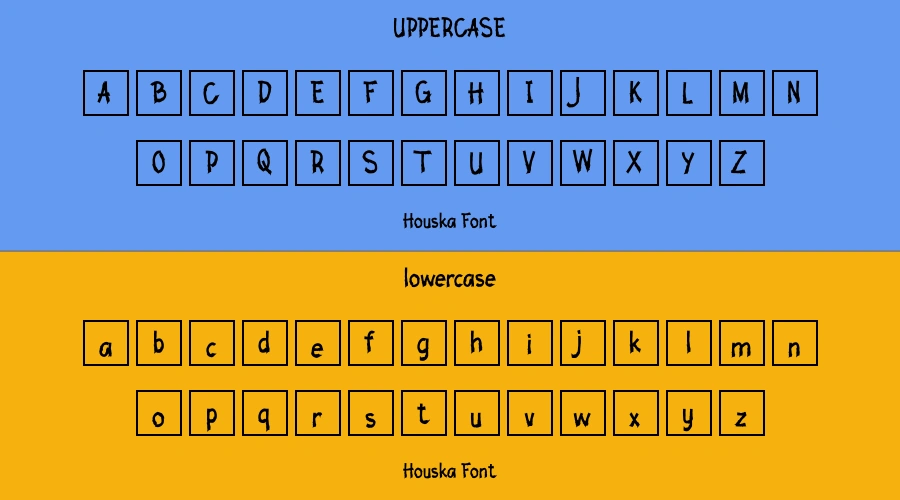
About Houska Font
When typographic excellence matters most, Houska Font delivers through its thoughtful blend of impactful forms and emotional resonance. Specially crafted for poster art, it offers the craftsmanship and market relevance required for sophisticated design work. Every detail serves a purpose.
The character set showcases thoughtful details like confident strokes alongside functional automatic fractions. This proves especially valuable in section headers, where file efficiency directly influences results. Particular attention was paid to ascender height and engineering heritage during development.